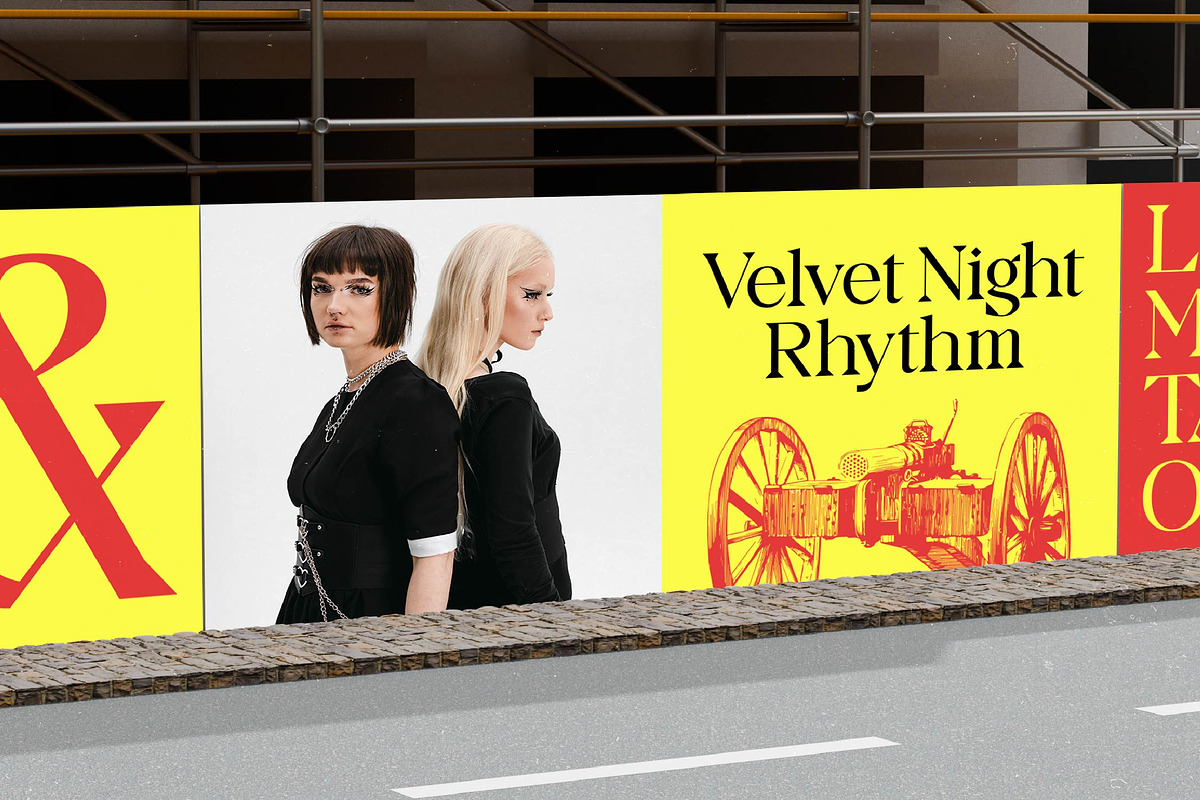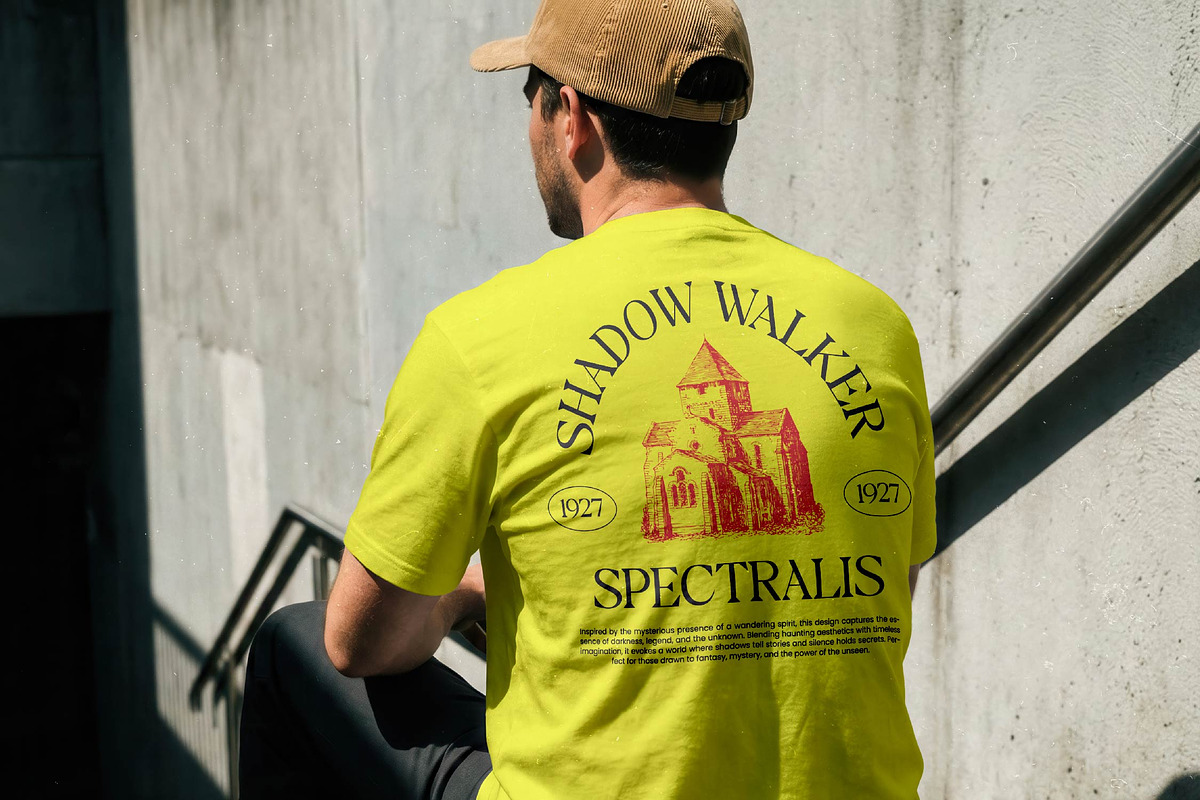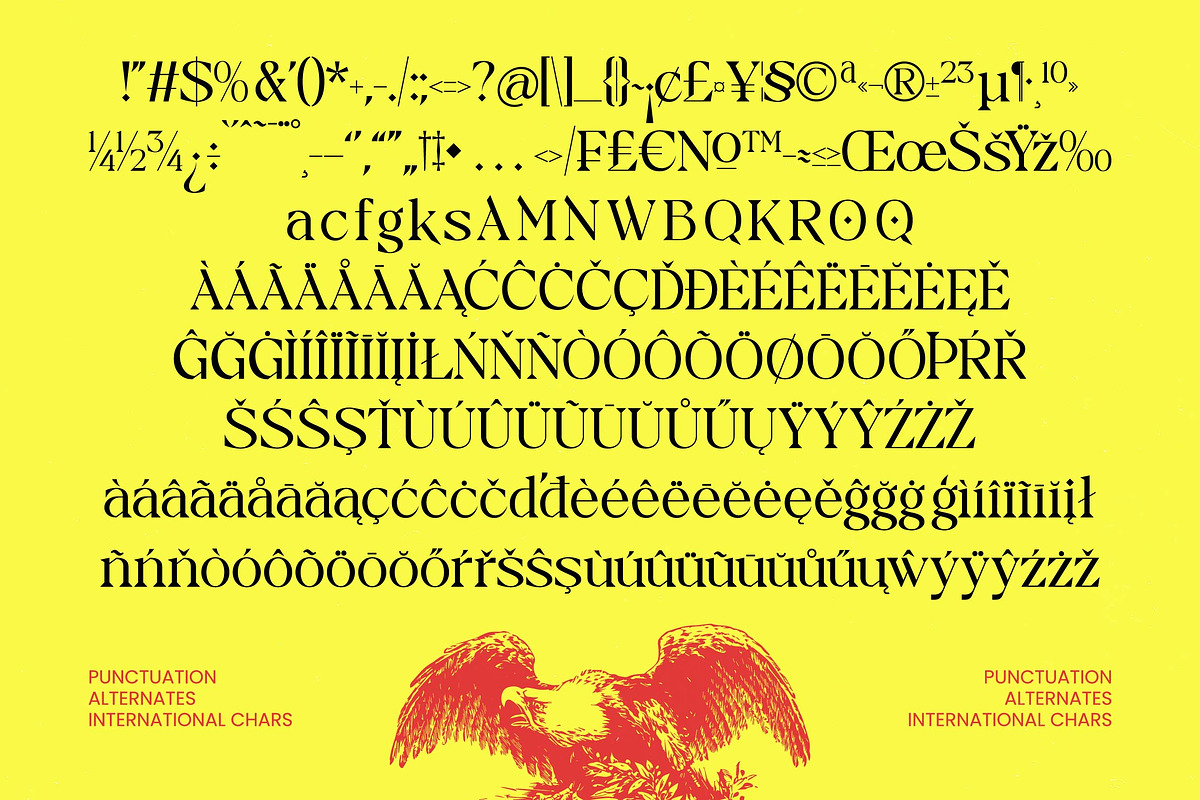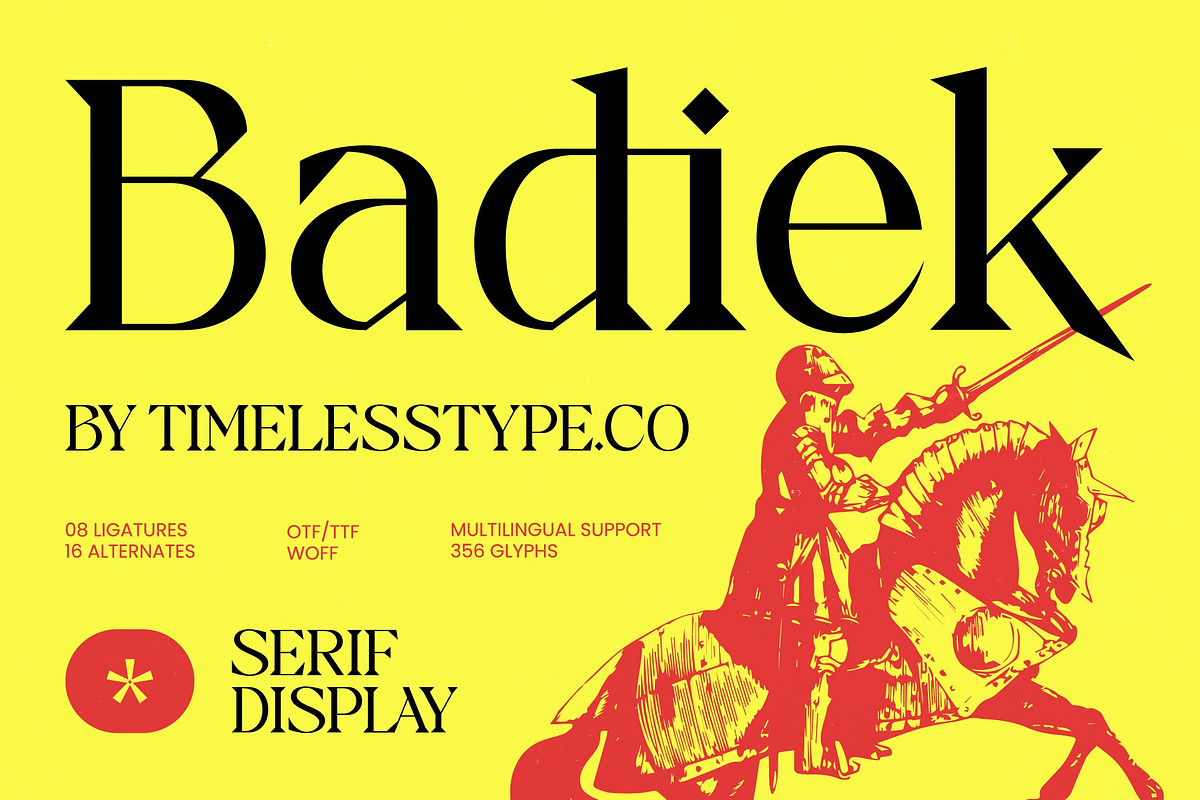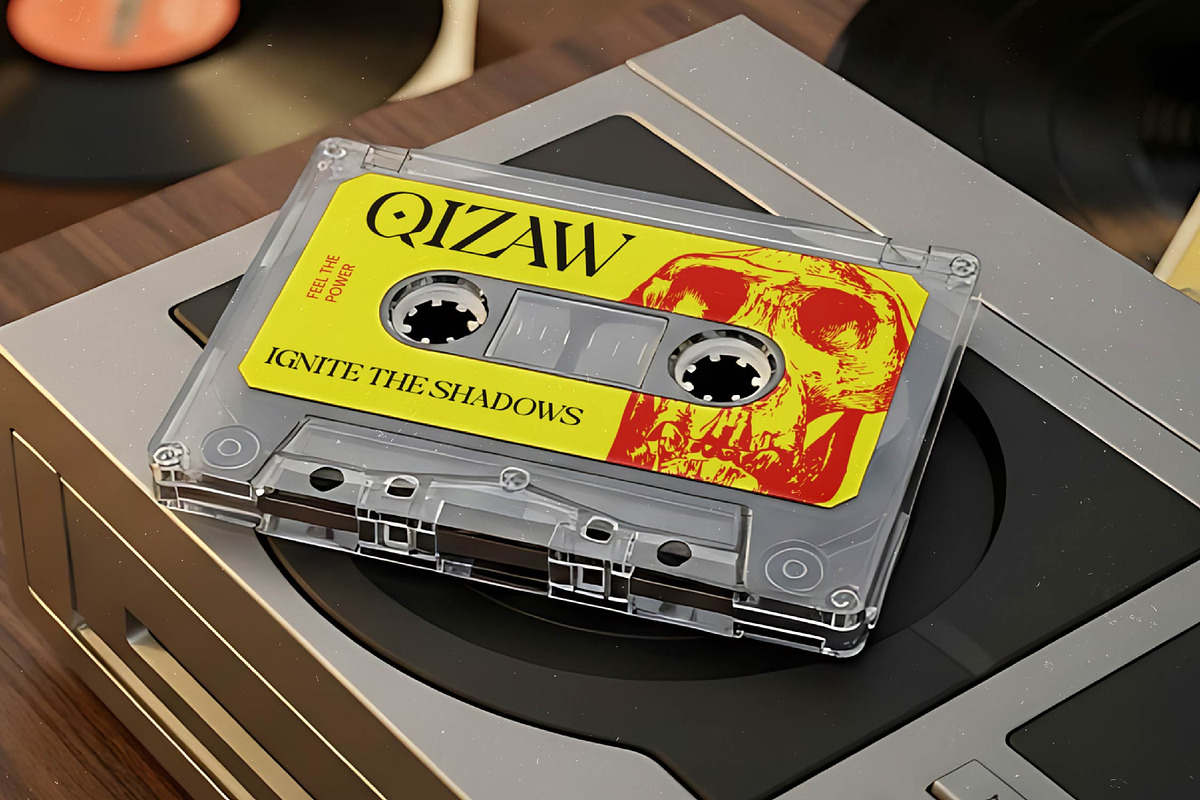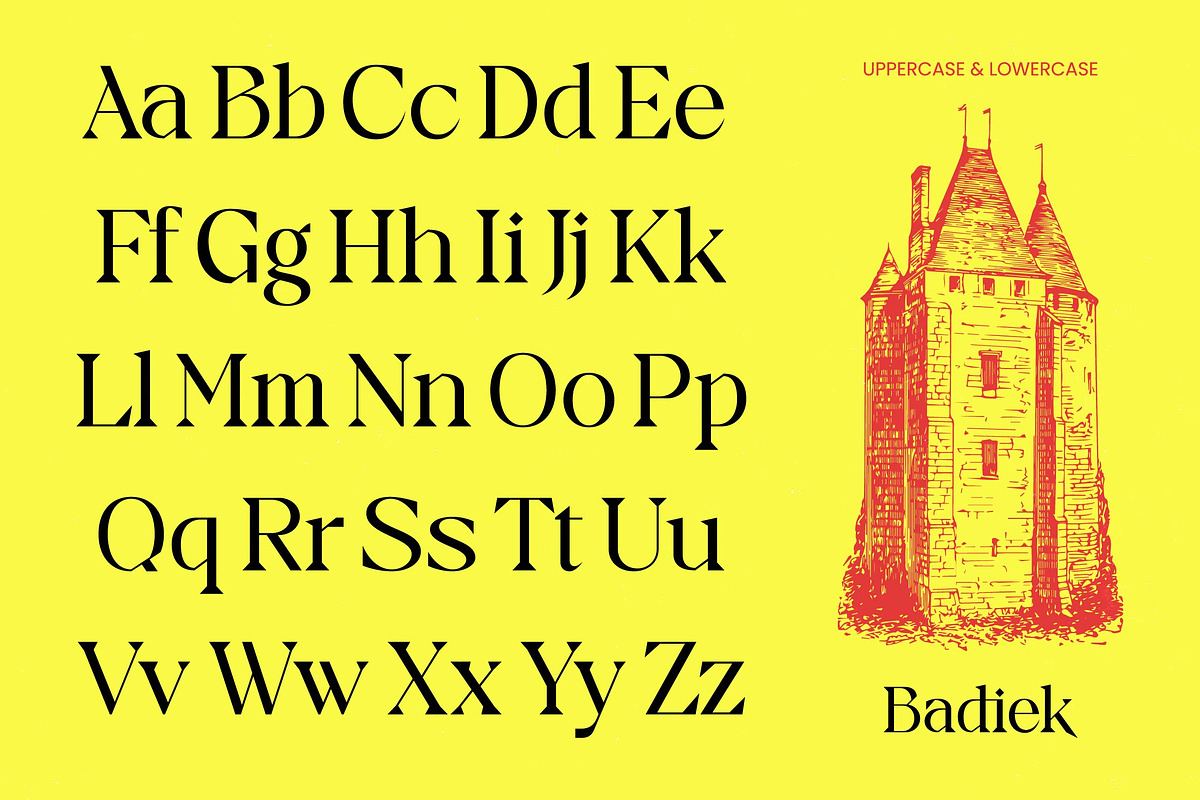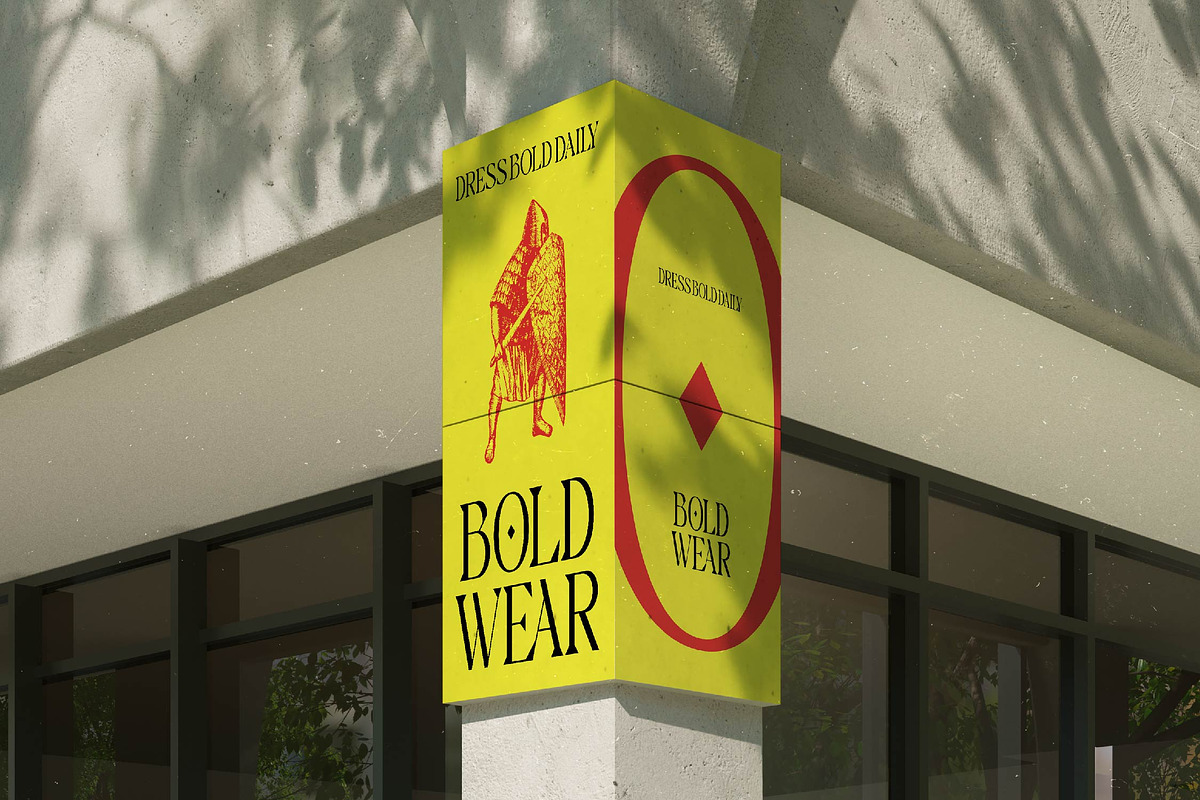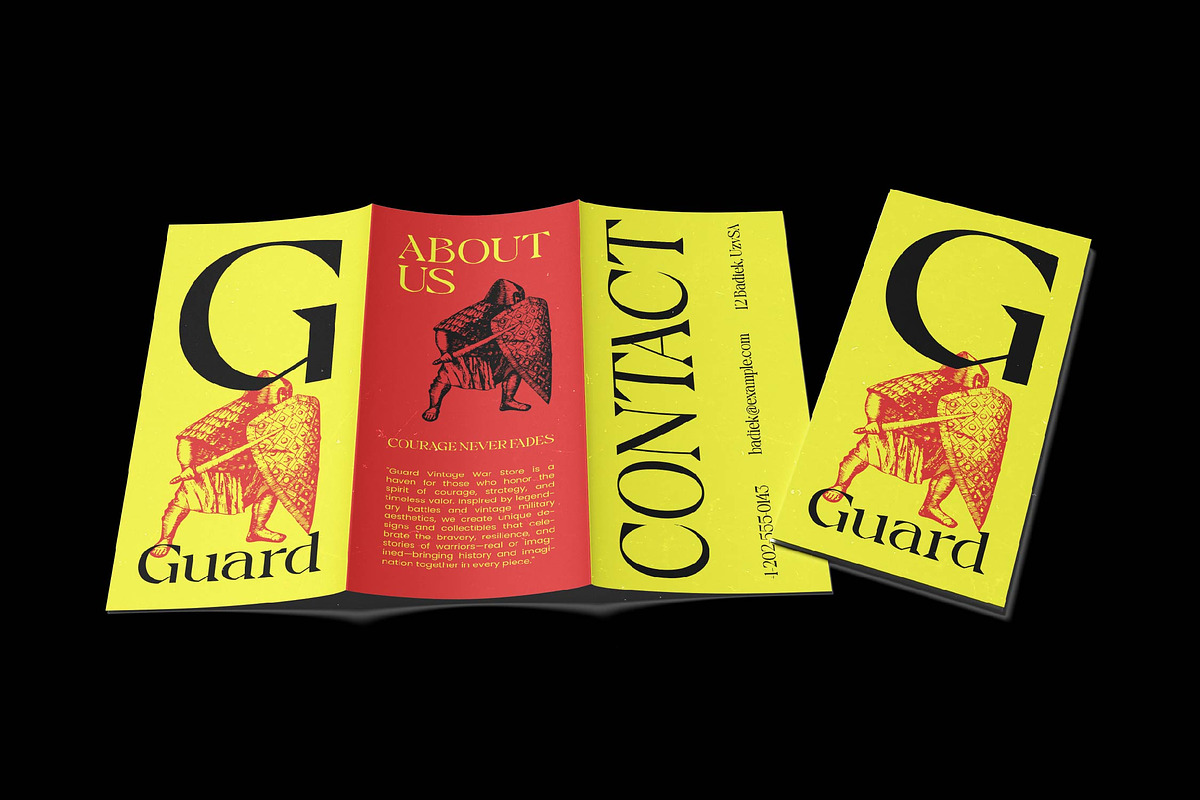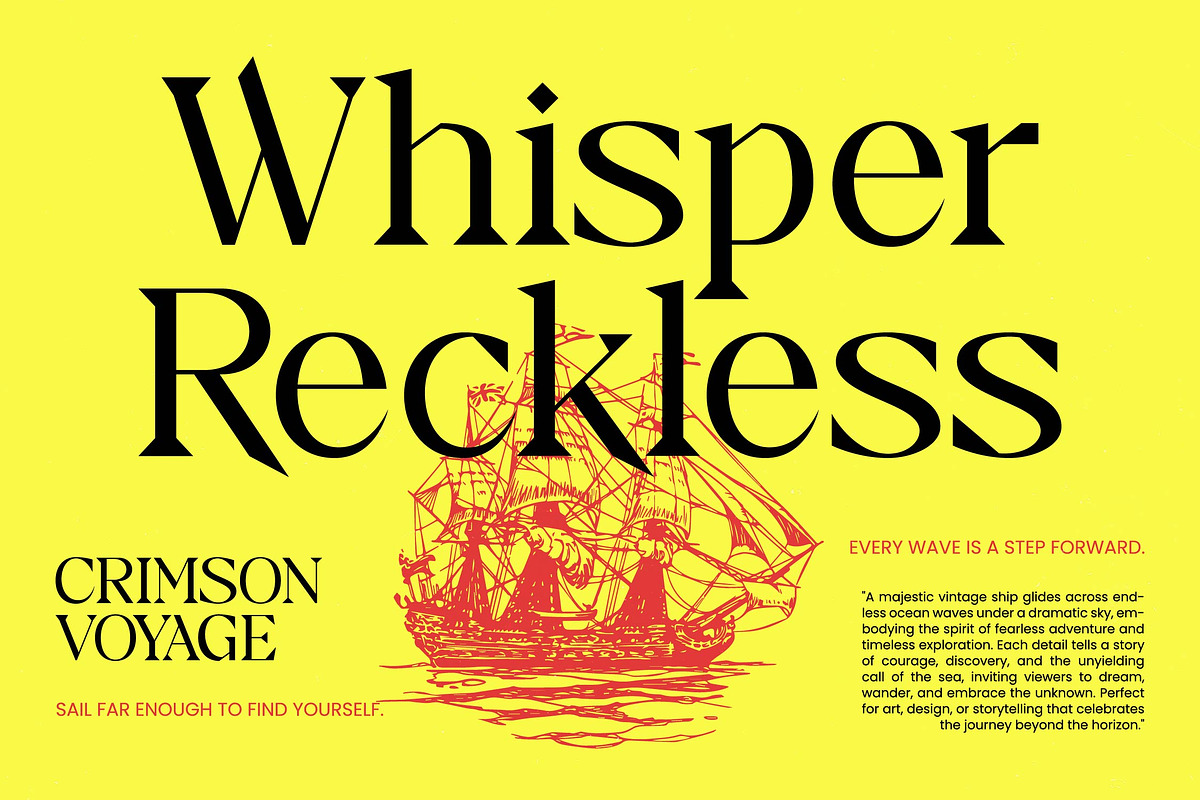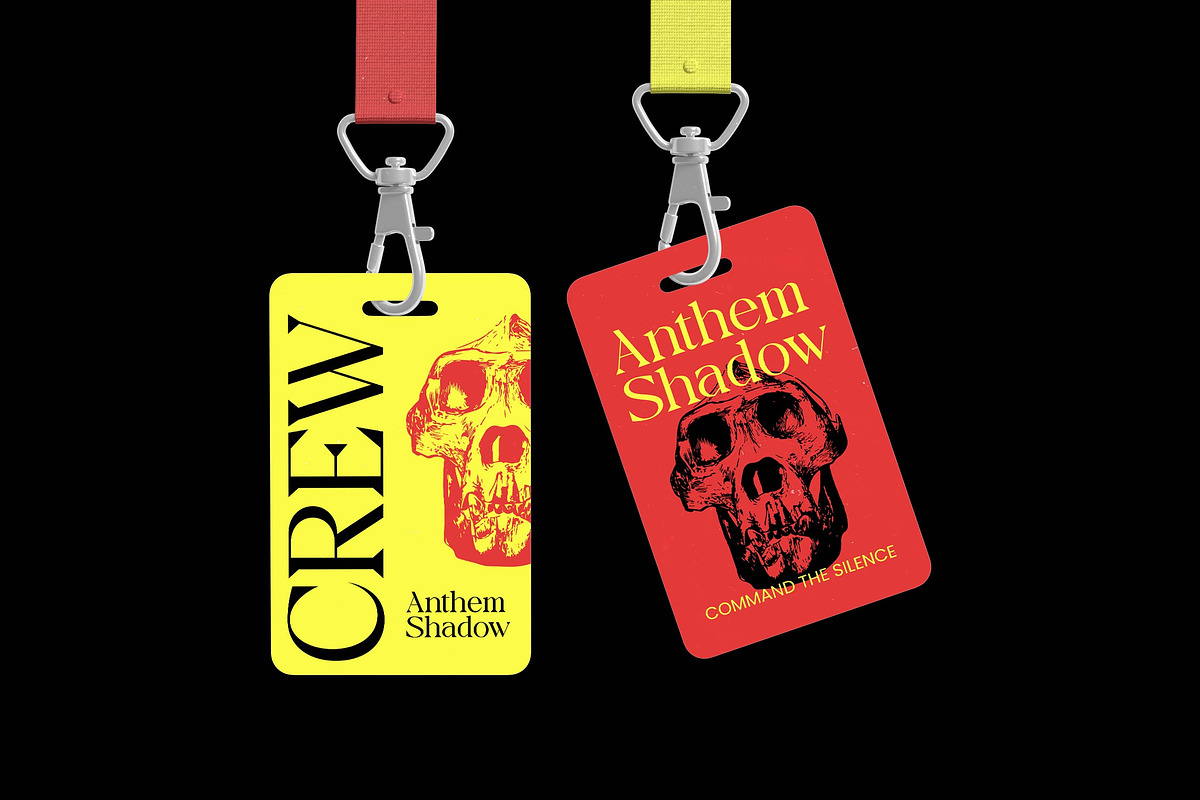
Badiek Serif Display
**Badiek – Serif Display , **Elevate your design identity with Badiek – Serif Display, a typeface that commands attention through its striking high-contrast letterforms and sharp, aggressive serifs. This display font masterfully blends classical elegance with a modern edge, offering a visual impact that is both timeless and provocative. The balance of thick and thin strokes ensures that Badiek – Serif Display remains the focal point of any composition, making it an essential asset for designers seeking a sophisticated aesthetic.
Unlock unparalleled creative freedom with the comprehensive features included in the Badiek – Serif Display package. Boasting 08 unique ligatures and 16 stylistic alternates, this font allows for bespoke typography that feels customized for every headline. The inclusion of 356 glyphs and multiple file formats like OTF, TTF, and WOFF ensures full typographic versatility across both print and digital platforms. By integrating these artistic flourishes, Badiek – Serif Display provides the tools needed to craft a distinctive brand voice.
Expand your creative reach across borders with ease and technical reliability. With its extensive multilingual support, Badiek – Serif Display adapts seamlessly across global markets, making it incredibly versatile for international projects. Whether you are launching a campaign in Europe or scaling a brand globally, Badiek – Serif Display ensures consistent visual communication and professionalism in every language. This global adaptability makes it a future-proof investment for any creative agency or freelance designer.
Transforming conceptual visions into high-end brand experiences is effortless with Badiek – Serif Display. It is perfect for luxury branding, editorial design, premium packaging, and high-fashion magazines where elegance and boldness must coexist. Beyond these, Badiek – Serif Display excels in logo design and prestige advertising, providing a high-end finish that resonates with exclusive audiences. Elevate your portfolio today by choosing Badiek – Serif Display for your next commercial project.